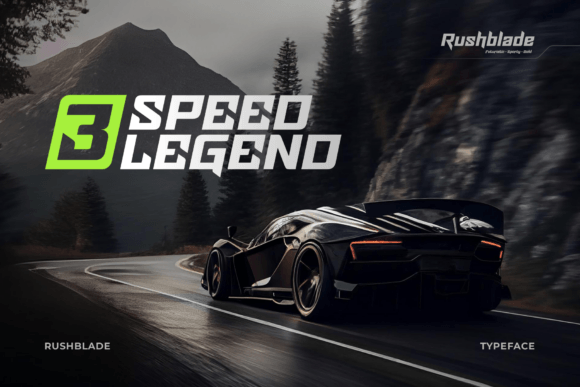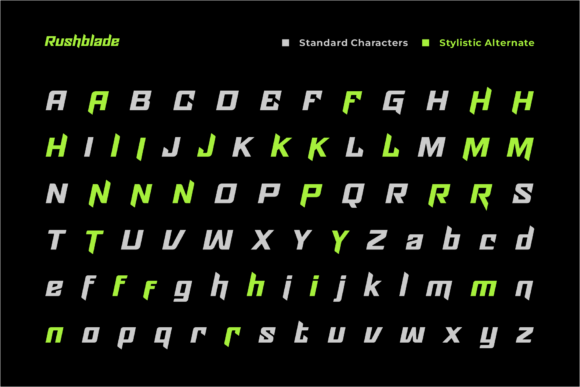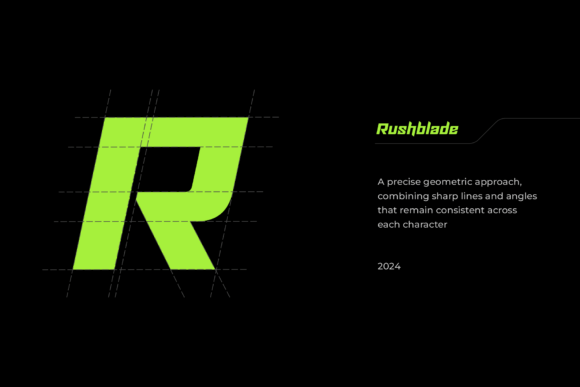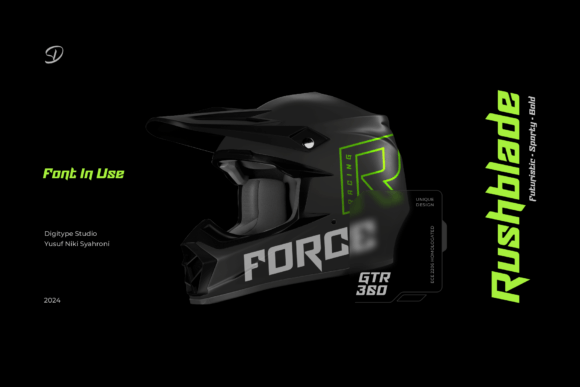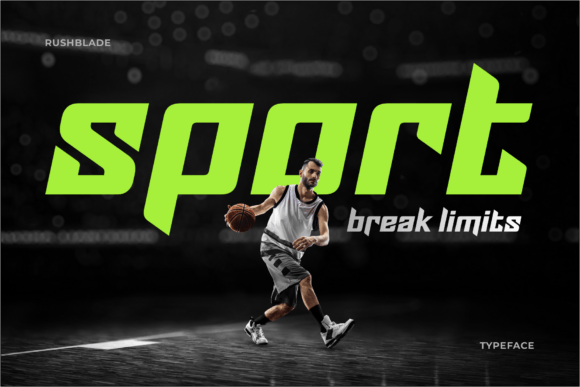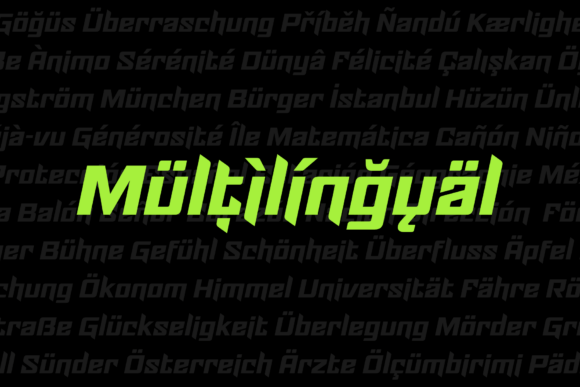
Introduction to Rushblade Font Font
Fonts play a crucial role in design, and the Rushblade Font font is a typeface that brings both character and versatility to any project. Whether you’re working on a branding project, a website, or a print design, the Rushblade Font font offers a unique style that can elevate your work.
Rushblade is a futuristic, sporty, and bold display typeface, crafted for designs that demand a cutting-edge, high-speed aesthetic.
Drawing inspiration from the dynamic world of racing and gaming, Rushblade injects a sense of movement and power into every project Its sharp, angular forms and strong structure make it ideal for logos, headlines, and branding that command attention.
Key Features of Rushblade Font Font
Why Choose Rushblade Font Font?
The Rushblade Font font is more than just a typeface – it’s a design tool that helps you communicate your message with style and clarity. Its unique character set and versatile design make it suitable for a wide range of applications, from elegant invitations to bold headlines.
With its carefully crafted letterforms and balanced proportions, the Rushblade Font font ensures readability and visual appeal across all mediums.
What makes Rushblade Font font special?
The Rushblade Font font stands out with its unique design, exceptional readability, and versatility across various design applications.